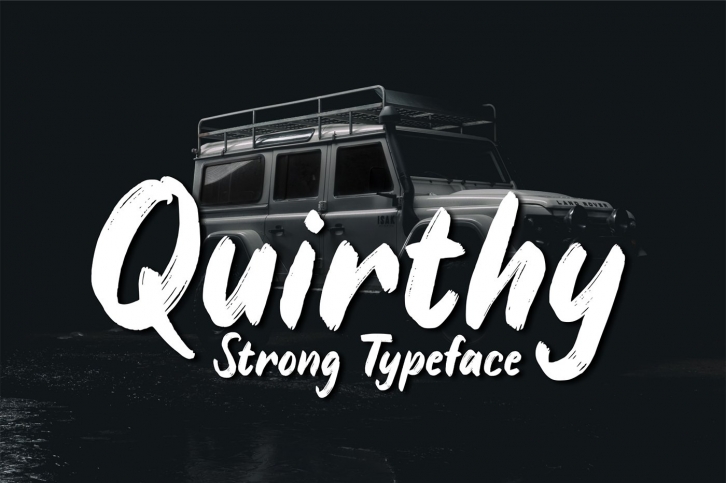
Quirthy is a great font that was designed by Brithos Type. Imagine the amount of combinations you can create using this font! The archive is 5.58 MB and it was released on May 14, 2020. Quirthy looks beautiful on wedding invitations, greeting cards, logos, posters, labels, t-shirt designs, logos, business cards and is perfect for use in ink or watercolor works, fashion, magazines, packaging and food menus, children's books and more!